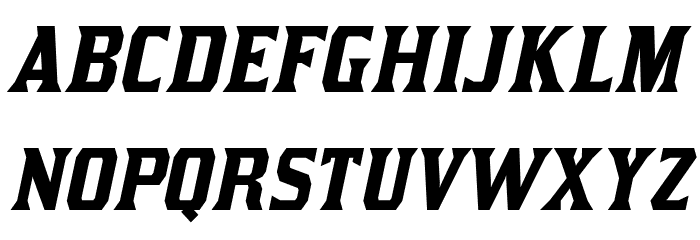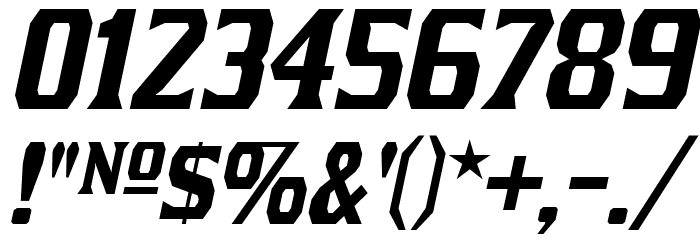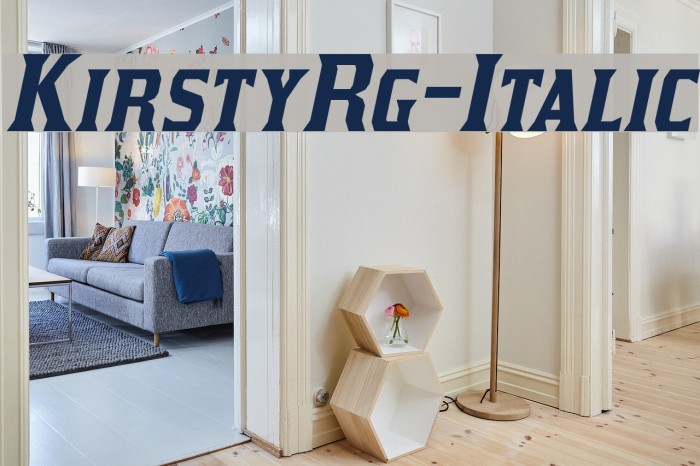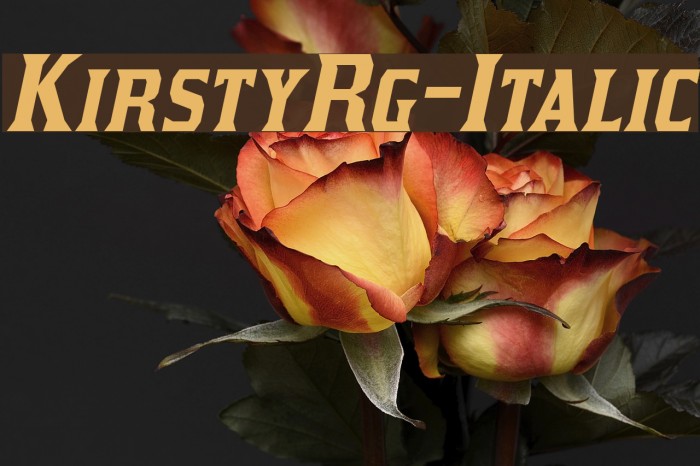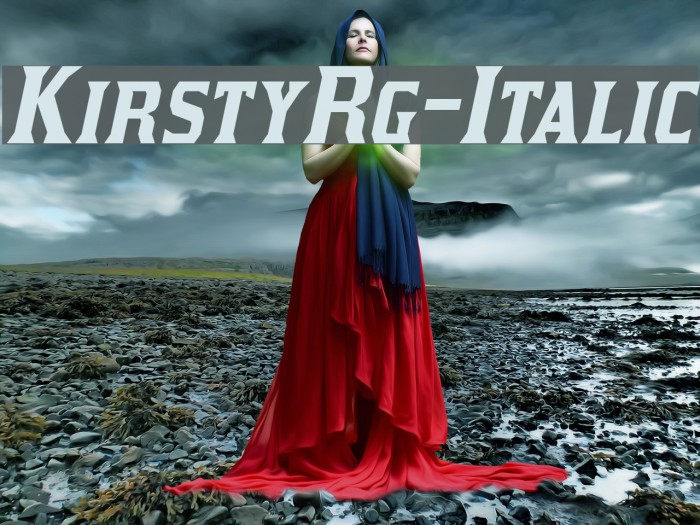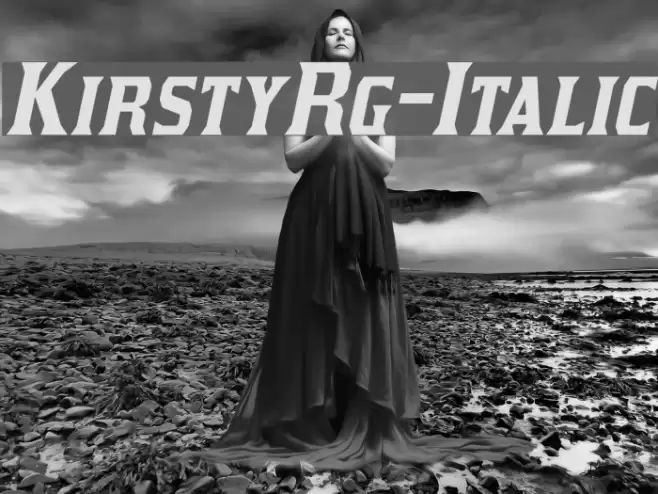
KirstyRg-Italic Font
This font features a bold and dynamic italic style, characterized by sharp angles and a strong presence. The uppercase and lowercase letters are designed with a consistent slant, giving a sense of motion and energy. The numerals and special characters maintain this angular design, ensuring uniformity across all glyphs. The strokes are thick, providing a robust appearance, while the spacing between characters is tight, enhancing the compact and cohesive look. This font is ideal for projects that require a bold statement, combining modern aesthetics with a touch of aggression.
A bold, italic font with sharp angles and strong presence.
- Proposed Projects: Suitable for sports branding, action movie posters, dynamic logos, and impactful headlines.
- Character Spacing: Tight